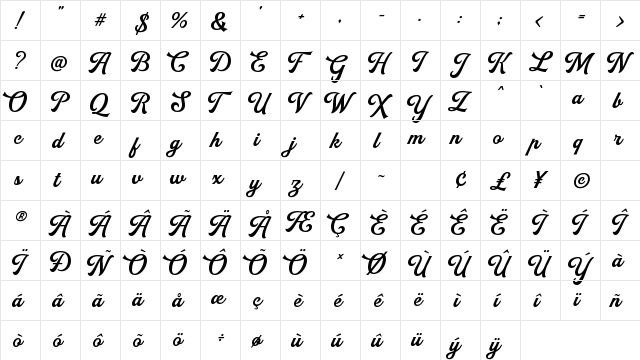
RallingtonDEMO Script Regular
| Foundry | Type Combo Studio |
| Designer | Iqbal Habibi |
Design Context for RallingtonDEMO Script Typeface
RallingtonDEMO Script brings a calligraphic fluidity to the page — its connecting strokes and expressive curves give it an unmistakably human quality.